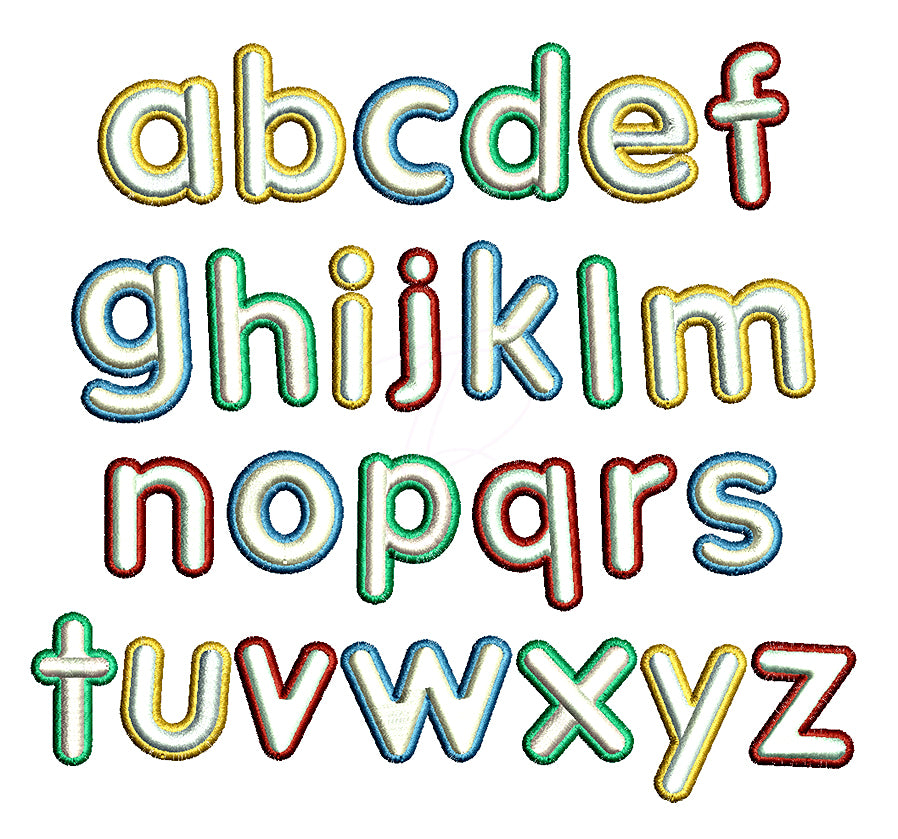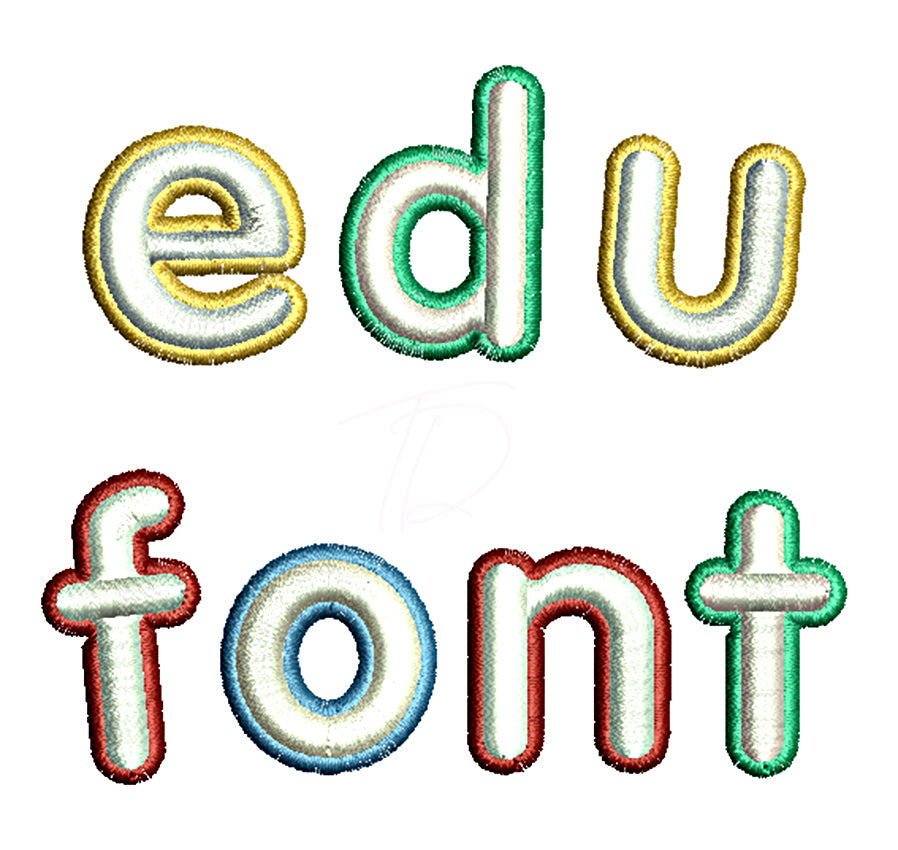
Education 3D Puff Embroidery Font with Outline
Celebrate learning in style with the Education 3D Puff Embroidery Font with Outline — a clean, bold font designed for 3D puff foam embroidery, featuring a crisp outline detail that makes every letter pop with professional definition. 🎓✨🧵
Perfect for school spirit wear, teacher appreciation gifts, graduation items, back-to-school apparel, and academic team uniforms. The built-in outline adds extra contrast and polish, making it ideal for multi-color stitching on hats, jackets, and bags.
- Optimized for 3D puff foam — higher stitch density and underlay included
- Features a built-in outline for added definition and multi-color options
- Includes full alphabet (A–Z, a–z) and numbers
- Best results at larger sizes (1" and above) for maximum puff effect
- Perfect for hats, caps, beanies, jackets, and school apparel